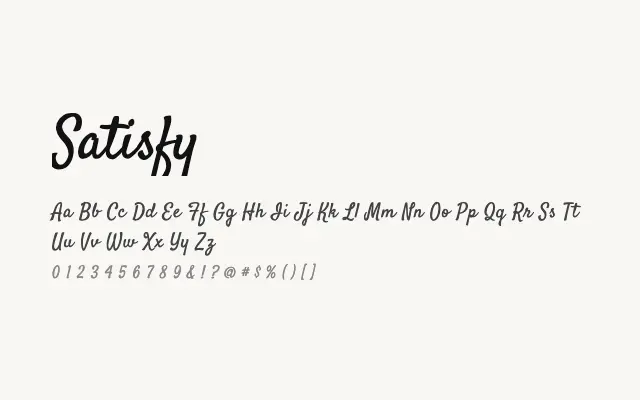
A smooth, flowing script that balances calligraphic elegance with approachable informality.
Satisfy's well-proportioned letterforms and consistent rhythm make it one of the more dependable casual formal scripts available on Google Fonts. It is widely used for wedding stationery, lifestyle branding, and social media headers where a touch of class is needed without excessive formality. Its single weight limits versatility but keeps it focused and effective at what it does.
Satisfy is a flowing, moderately formal script with smooth, connected letterforms and consistent stroke contrast that references calligraphic tradition without being overly stiff. It strikes a balance between elegance and accessibility.